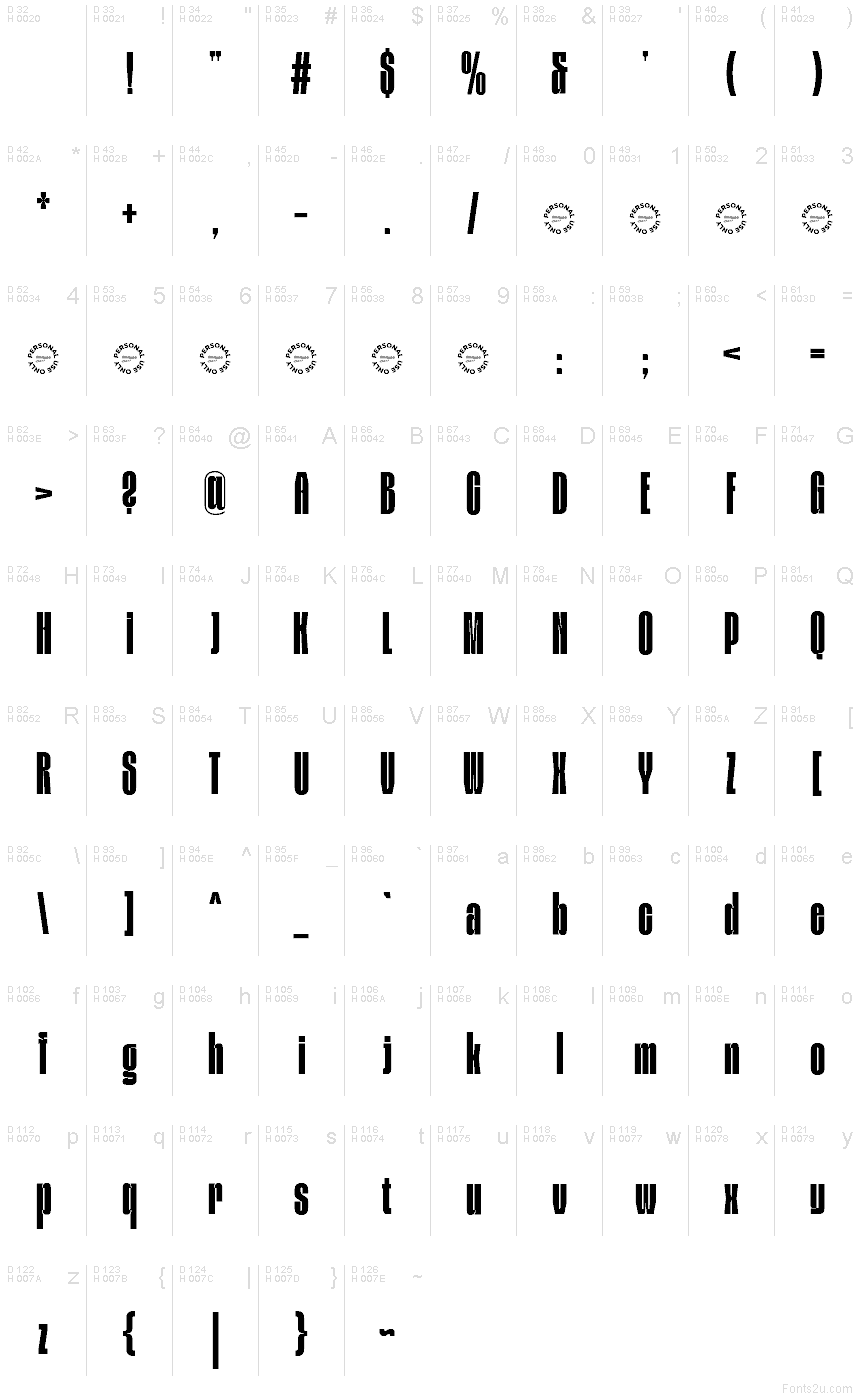
Condenso Demo Regular
Condenso font by Muhammad Muammar of Limitype is a sleek, modern, and geometric sans serif design. This condensed font carries an impactful presence with its contemporary appeal. Its professional and elegant look can be realized in print or digital applications.
Use Condenso for headlines, poster designs, business cards, resumes/CVs, magazines, reports covers, emails titles, social media posts images/texts/stories/reels/covers advertising banners/websites landing pages/blogs placeholders where copy “lorem ipsum” fillers have to go temporarily.
Condenso font by Muhammad Muammar of Limitype is a sleek, modern, and geometric sans serif design. This condensed font carries an impactful presence with its contemporary appeal. Its professional and elegant look can be realized in print or digital applications.
Use Condenso for headlines, poster designs, business cards, resumes/CVs, magazines, reports covers, emails titles, social media posts images/texts/stories/reels/covers advertising banners/websites landing pages/blogs placeholders where copy “lorem ipsum” fillers have to go temporarily.